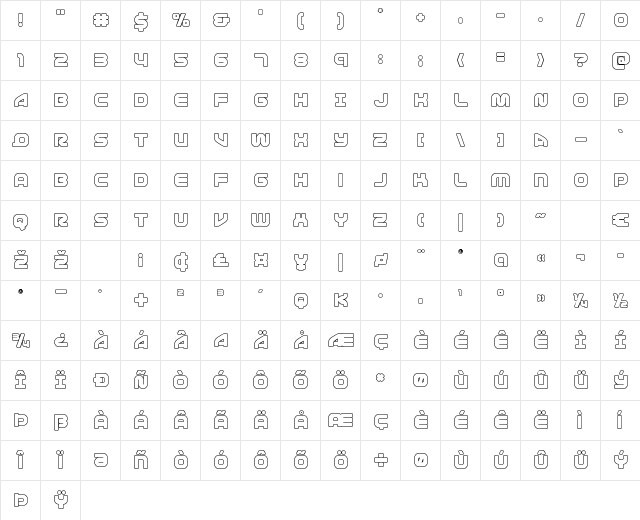
1st Enterprises Outline Regular
Design Context for 1st Enterprises Outline
1st Enterprises Outline is built around its visual character rather than neutral utility - its distinctive forms are designed to make an impression at display sizes.
Font Pairing: Pair with a clean neutral sans-serif for body copy to let 1st Enterprises Outline's character lead without overwhelming the composition.
Pro Tip: Use 1st Enterprises Outline exclusively at display sizes - it was designed to be seen, not read at length. Let a neutral companion handle body copy.